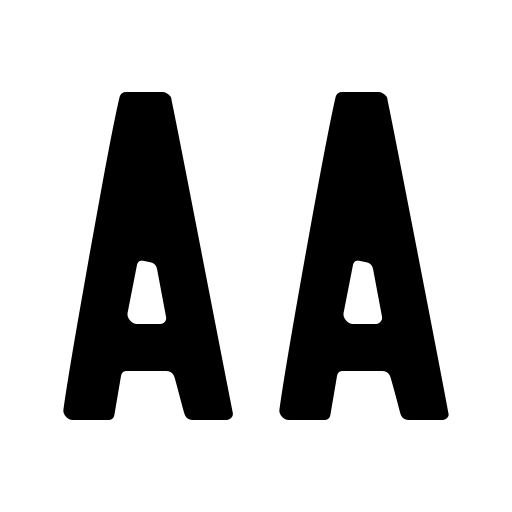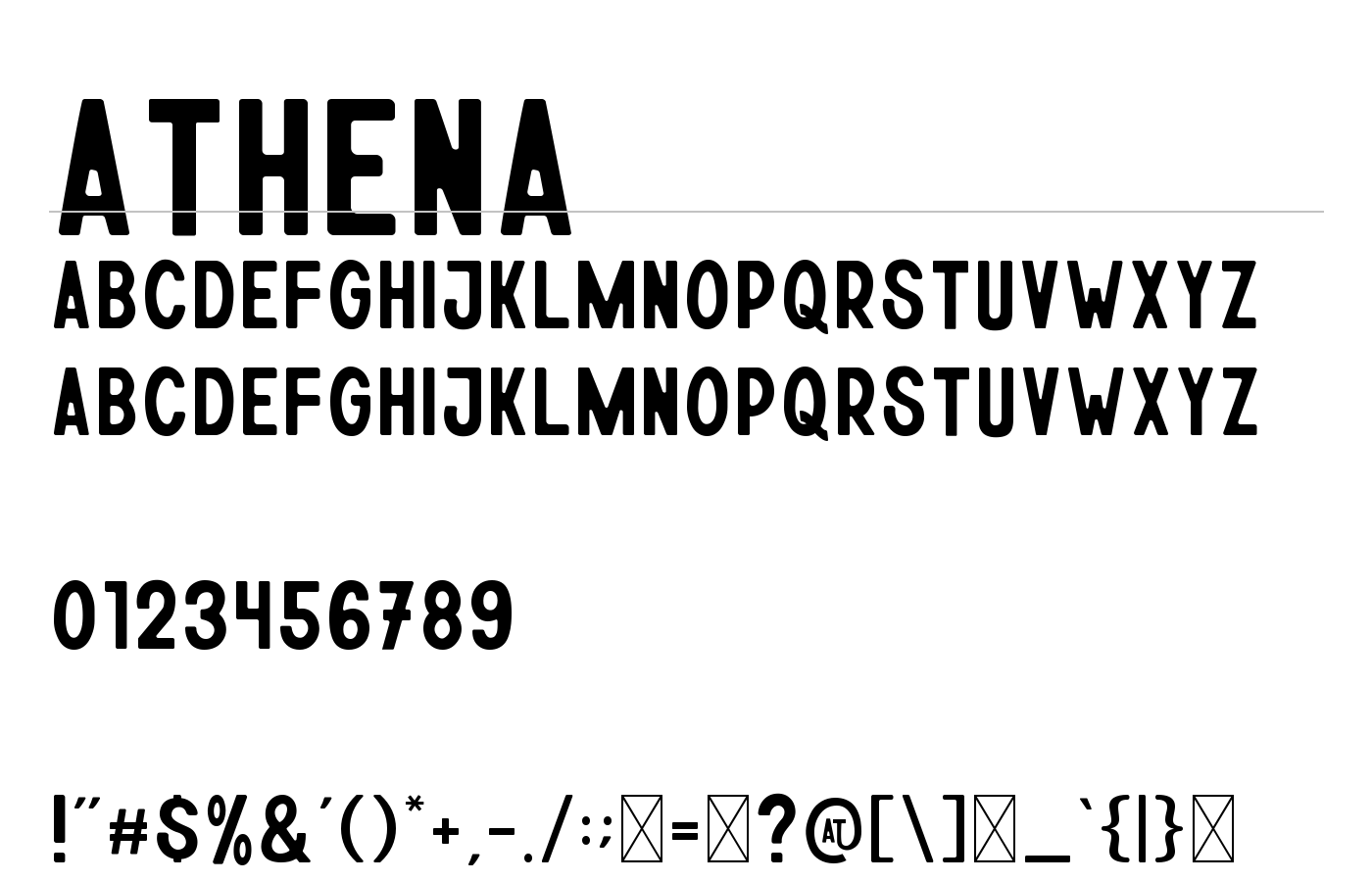
Athena is a bold, condensed sans serif font with a strong presence and modern charm. Its tall, narrow letterforms and uniform stroke weight give it a clean and approachable feel, making it ideal for impactful headlines, branding, and signage where clarity and style are key. This font communicates confidence and simplicity, perfect for contemporary designs that need a touch of boldness without complexity.
Athena Font
About Athena Font
| Font family | Athena Font |
| Designer | Doli Harahap |